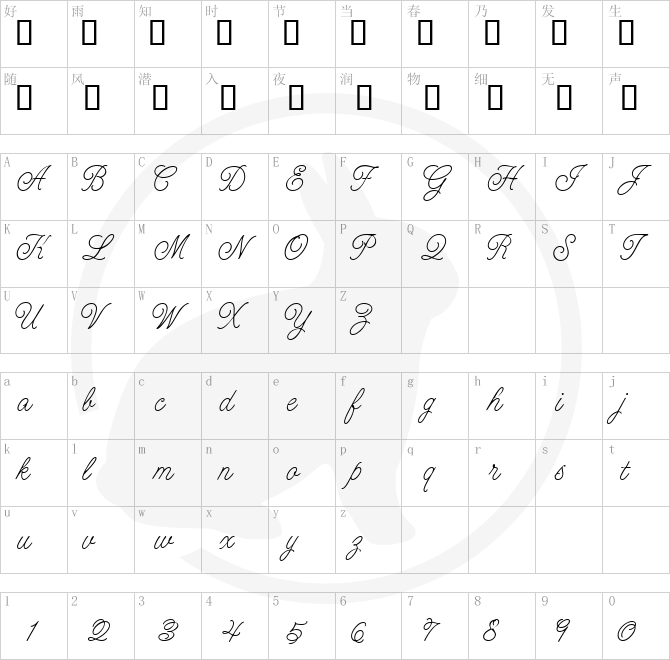
- Font Name:CAC Lasko Even Weight
CAC-Lasko-Even-Weight.ttf is a very beautiful artistic font, CAC-Lasko-Even-Weight.ttf is widely used in the design and printing of various books and pictures,CAC-Lasko-Even-Weight.ttf has a strong visual impact,CAC-Lasko-Even-Weight.ttf is a commonly used font in newspapers, magazines and books, and is used in posters, e-commerce Poster design, store design, logo design, font design and other fields.CAC-Lasko-Even-Weight.